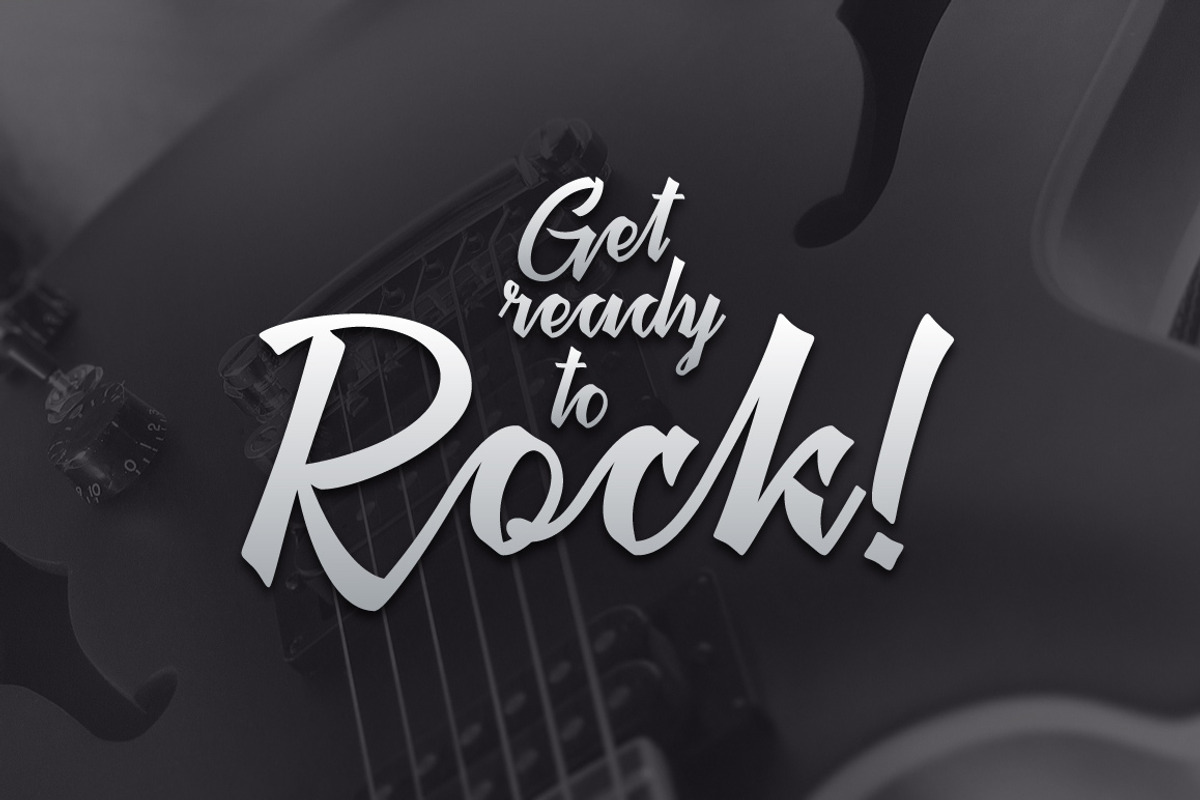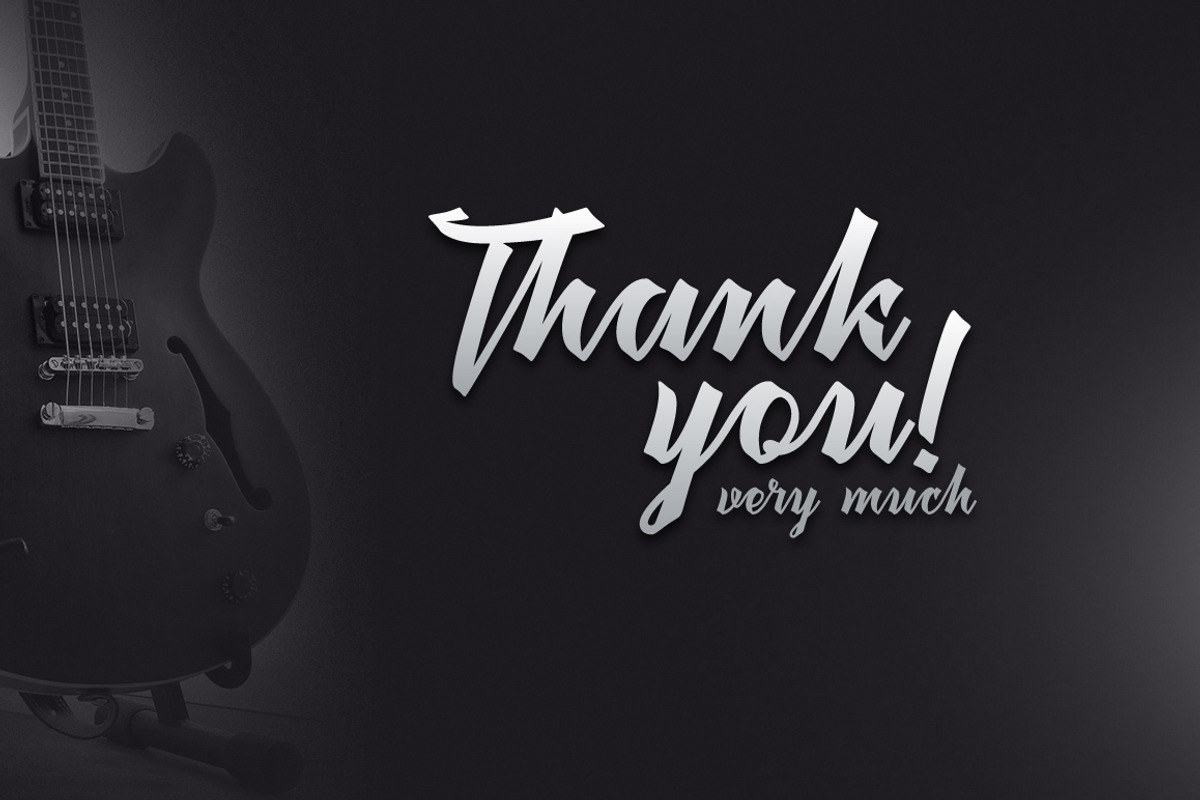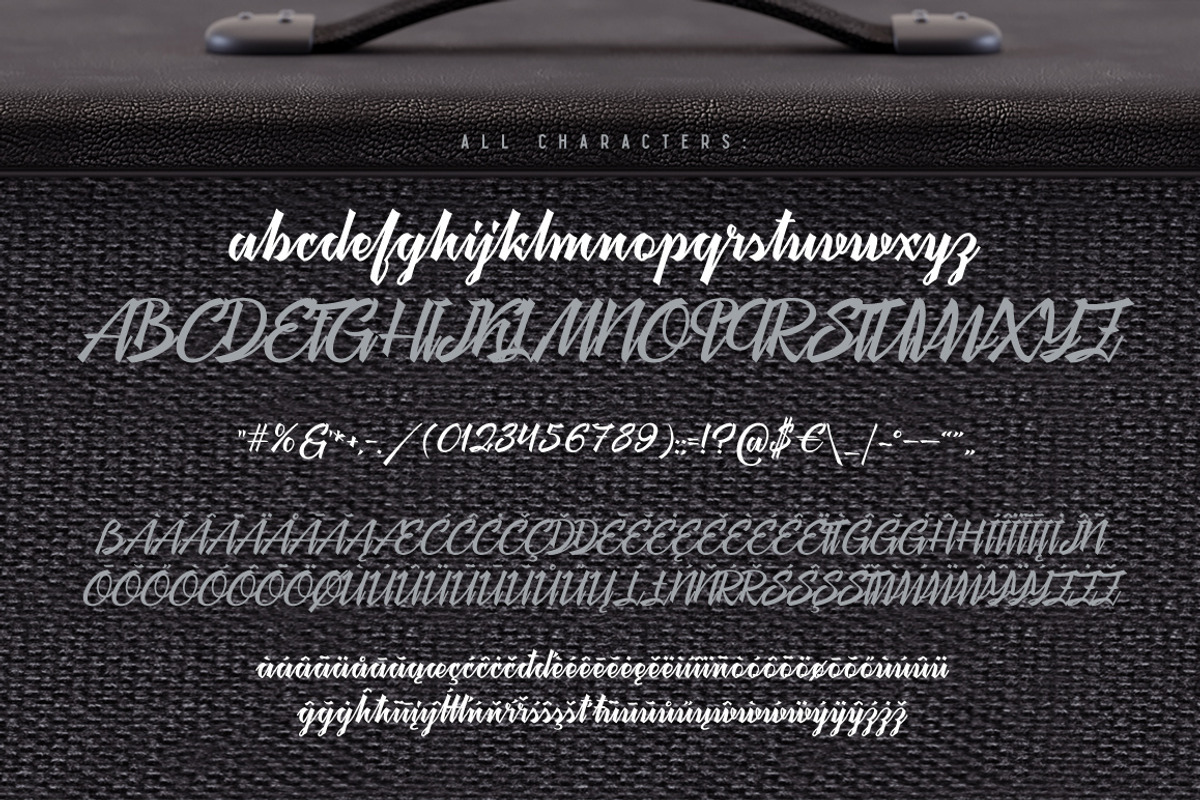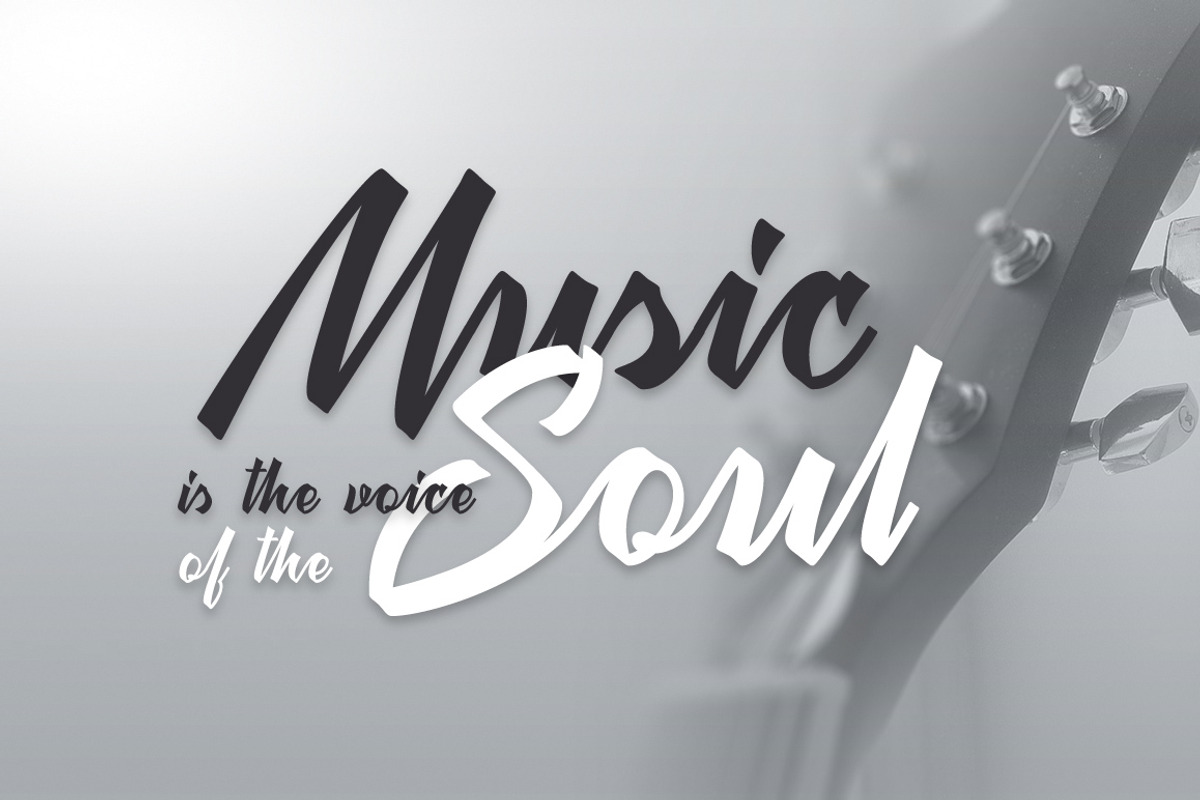
Megawatt font + Bonus
Megawatt font + Bonus by Gleb Guralnyk is a font selected for branding, posters, packaging, typography.
- It's a script with connected letters, lots of characters including West European languages support and few ligatures.
Why Megawatt font + Bonus is worth a look
Megawatt font + Bonus by Gleb Guralnyk fits naturally into Branding, posters, packaging, typography.